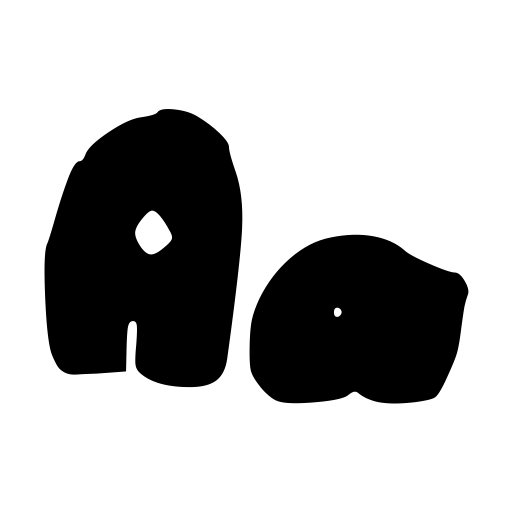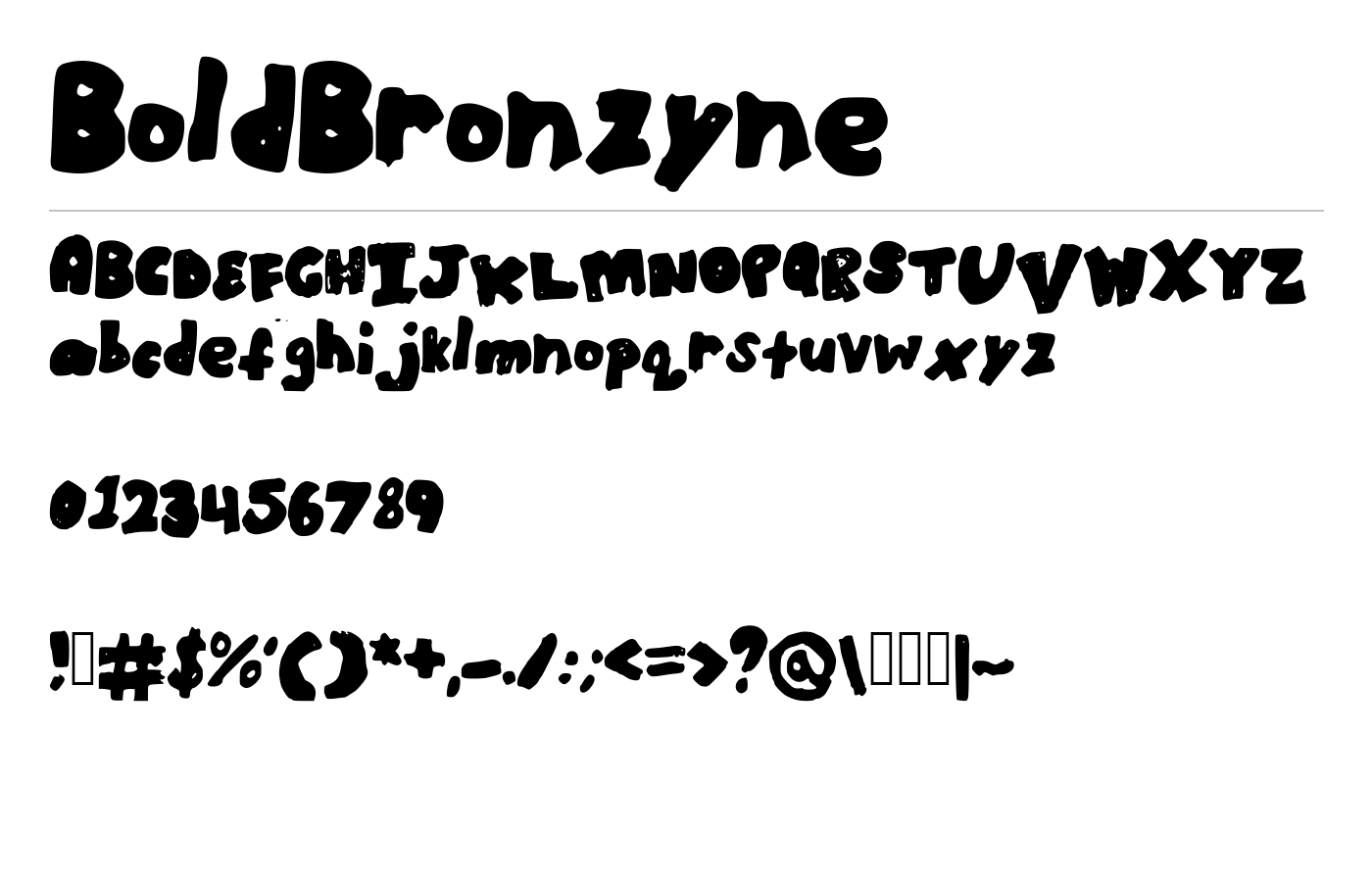
BoldBronzyne is a bold, hand-drawn sans serif font with a playful and informal character. Its chunky, irregular shapes and uneven strokes give it a friendly, casual vibe perfect for creative and fun projects, making it ideal for kids’ designs, posters, or branding that aims to stand out with personality.
BoldBronzyne Font
About BoldBronzyne Font